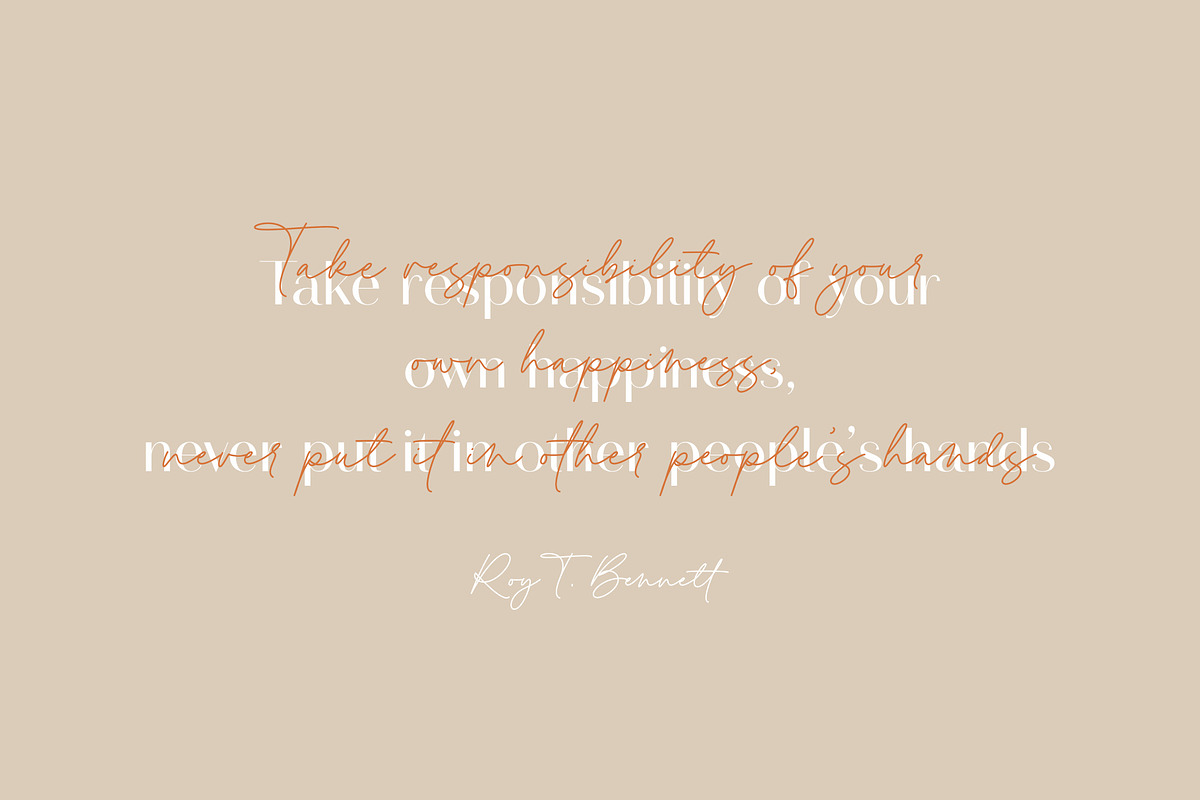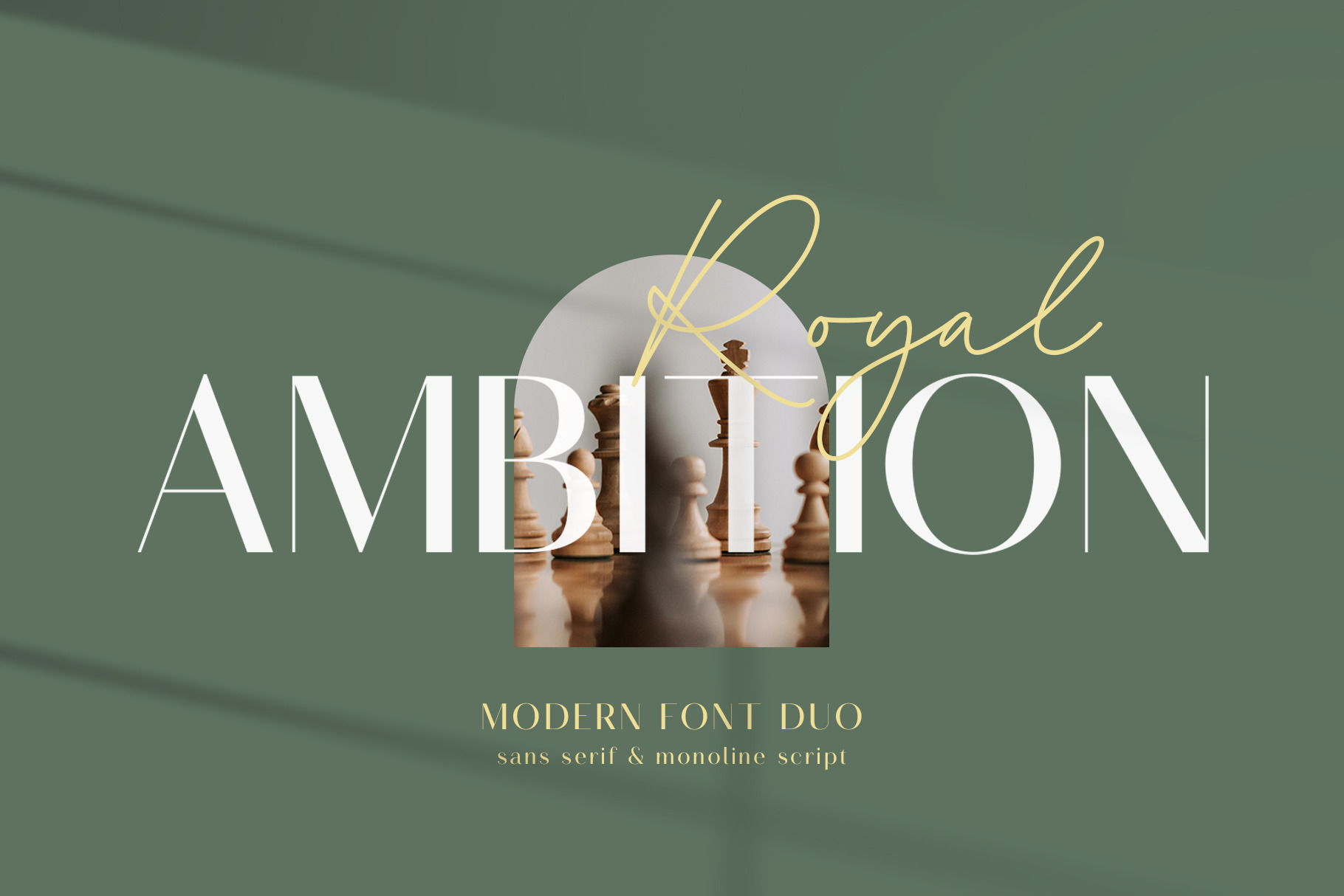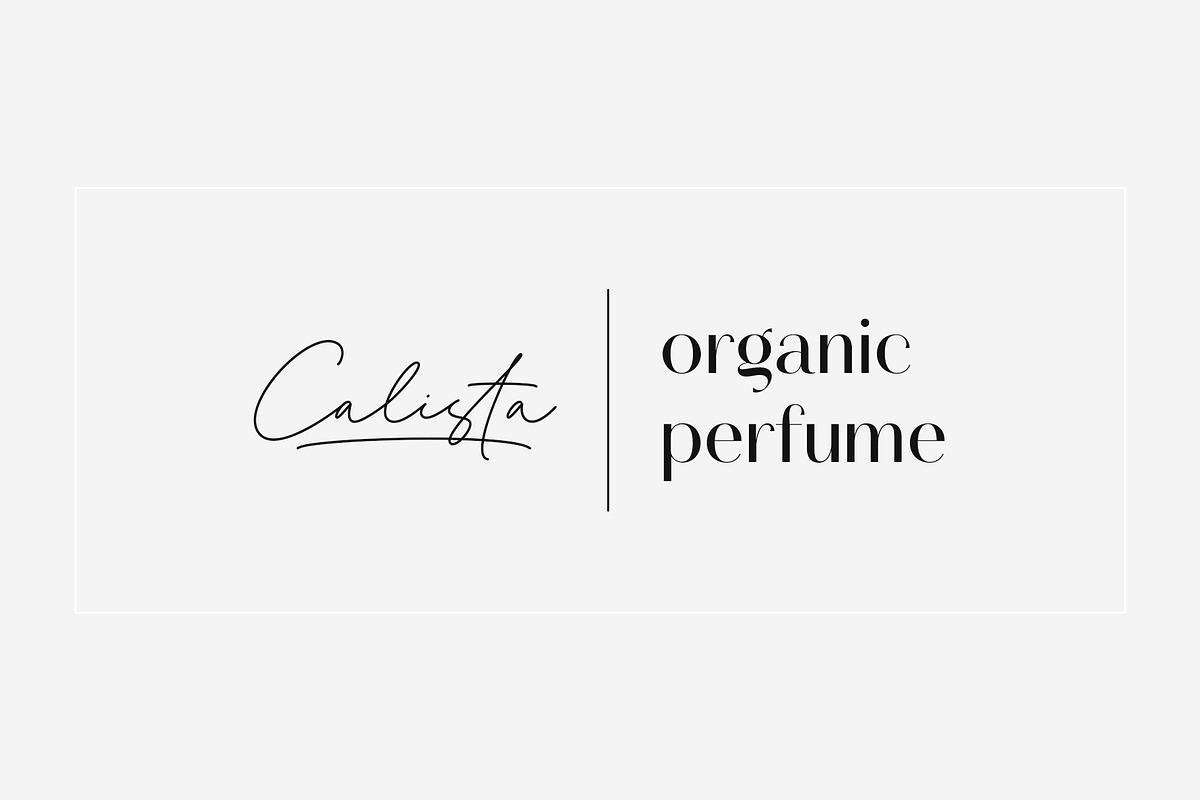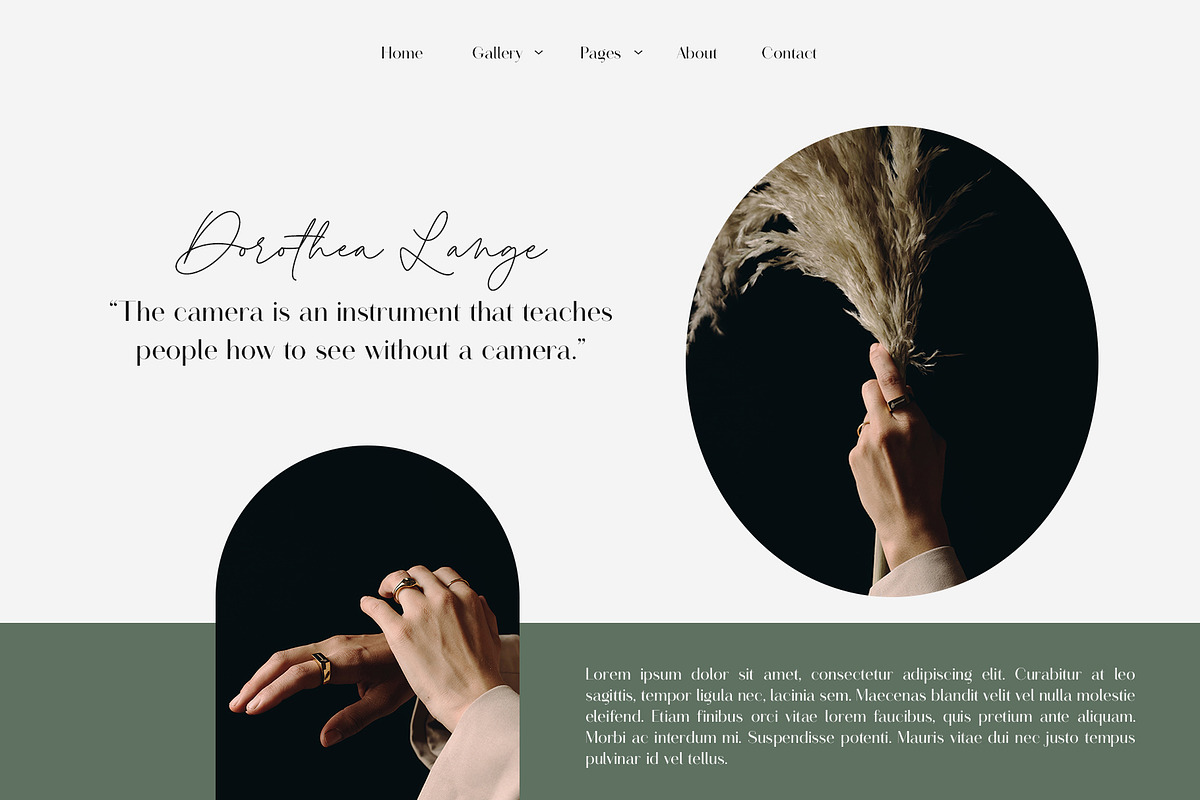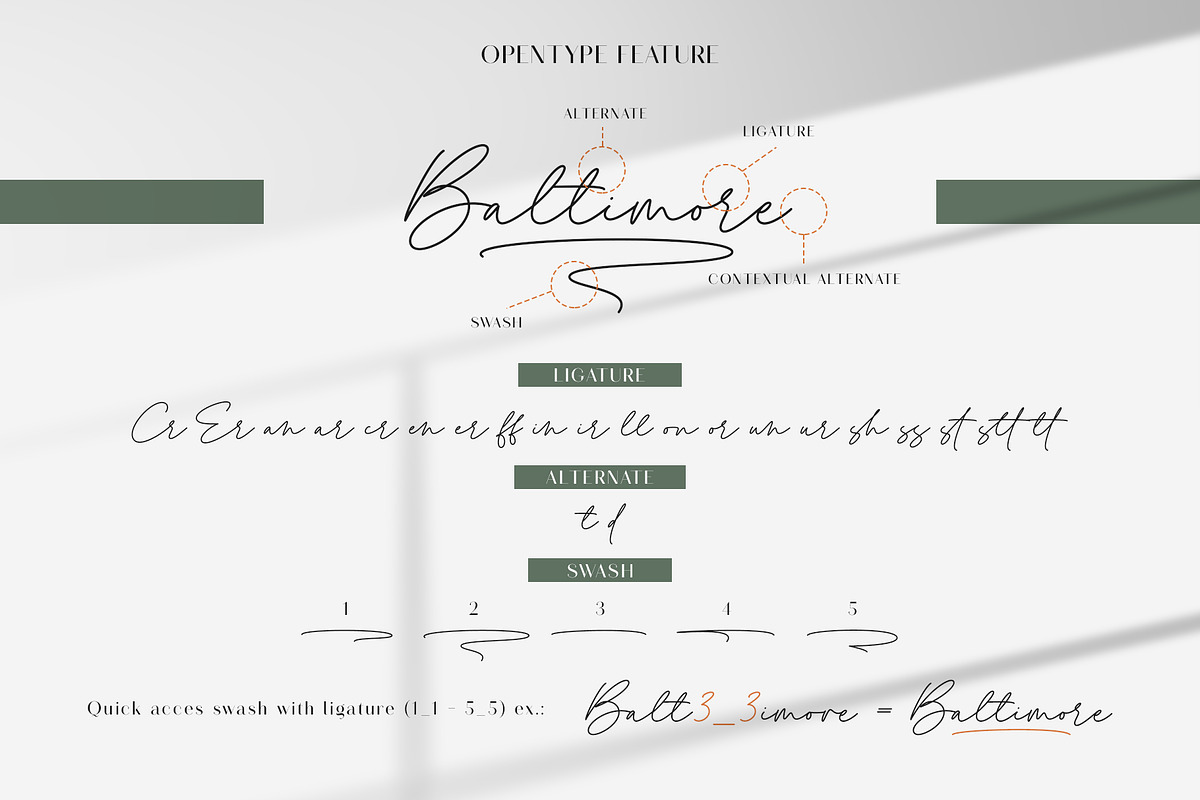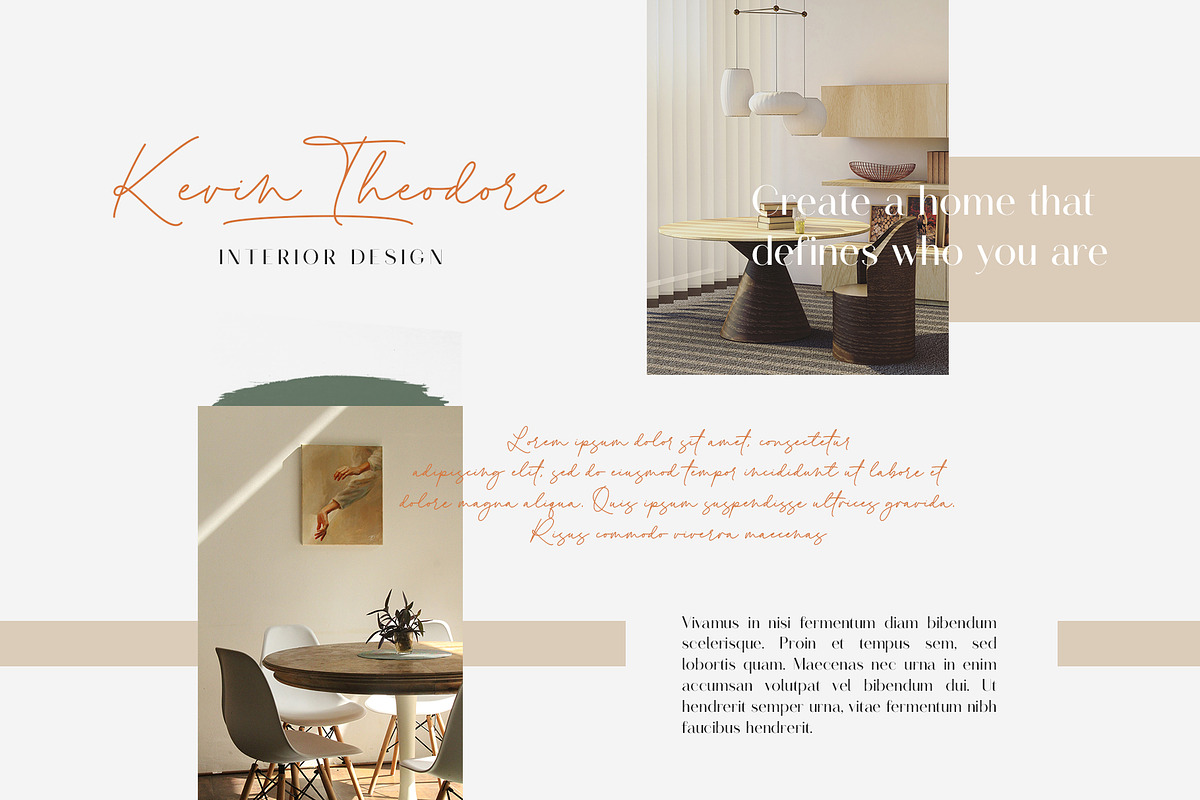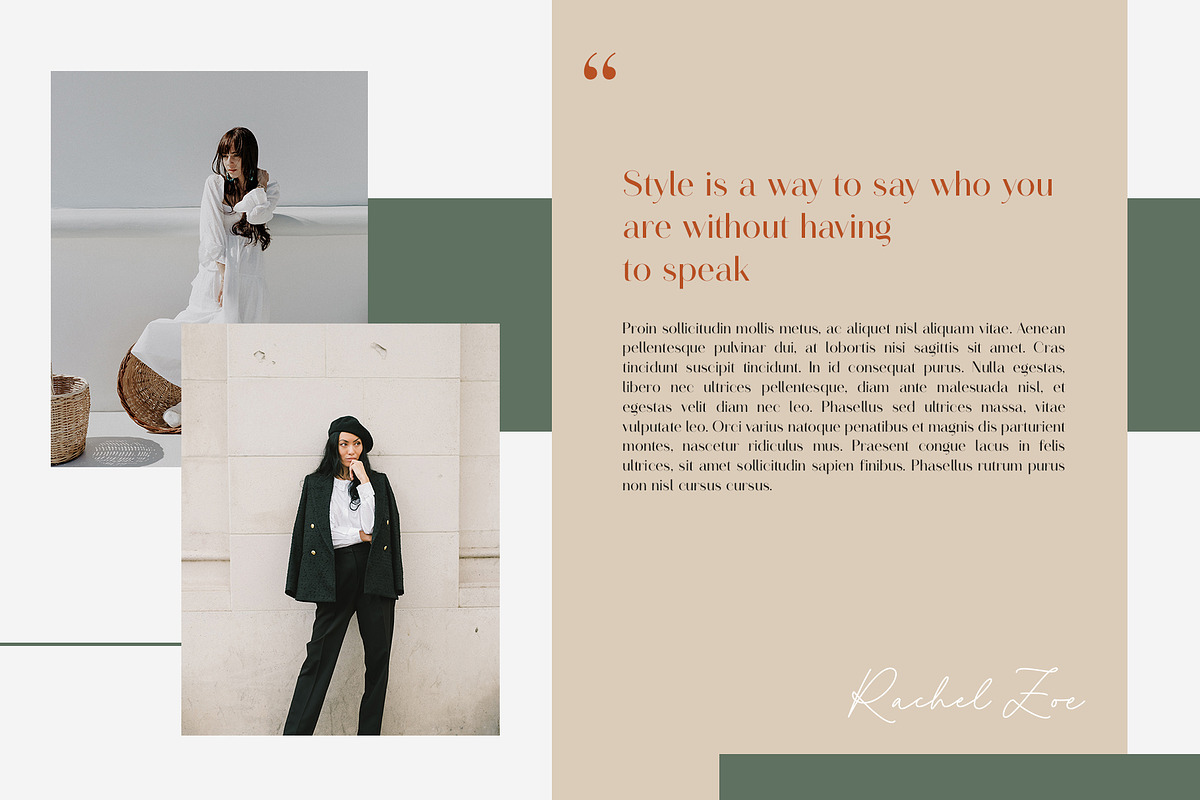
Royal Ambition | Font Duo
Royal Ambition is a perfect mix modern script and sans serif font. Together or apart, these fonts are ideal for adding a chic and cheery touch to your crafts. It was created to help you designing makes gorgeous logos, posters, wedding invitations, blog posts, social media, and more!
Swash
Alternate
Contextual Alternate
Numerals and Punctuation
Quick access swash
- Add number (1-5) + underscore + number (1-5). Ex: 1_1, 2_2, 3_3, 4_4, 5_5